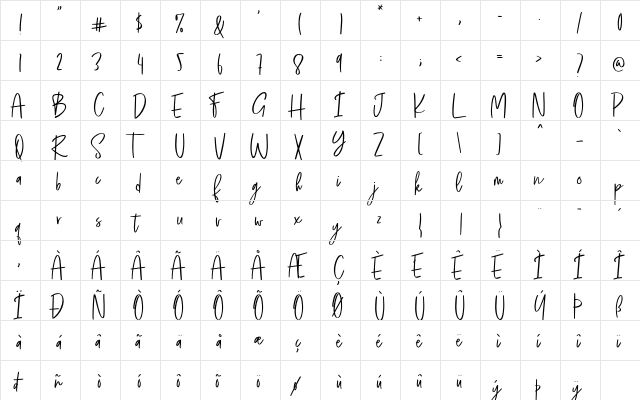
tiara wiliams Regular
Design Context for tiara wiliams Typeface
tiara wiliams is a composed and adaptable typeface that performs quietly and consistently across a wide range of design contexts.